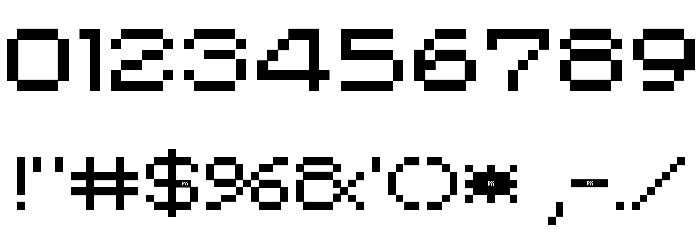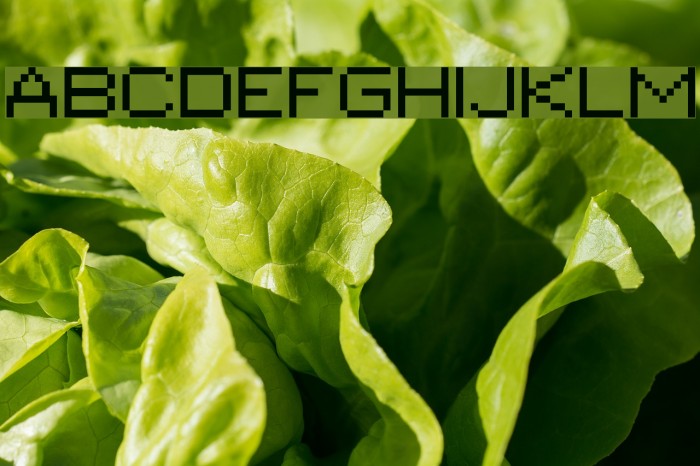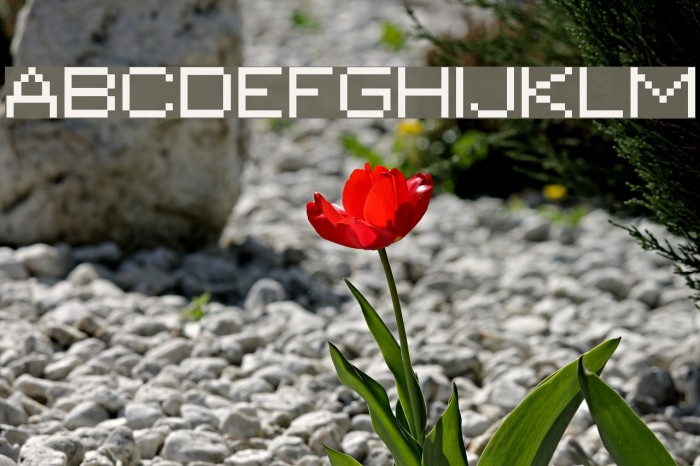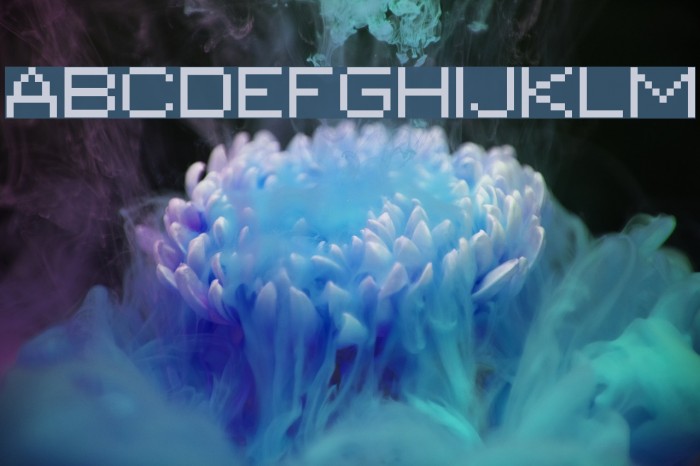
PIXgothic_7 Font
This font features a pixelated, blocky design reminiscent of early digital displays and retro video games. Each character is constructed with a grid-like structure, giving it a distinctly digital and geometric appearance. The uppercase and lowercase letters maintain a consistent height, contributing to a uniform look. The numerals and special characters follow the same pixelated style, ensuring cohesive visual harmony across all glyphs. This font's nostalgic aesthetic is perfect for projects aiming to evoke a sense of vintage computing or gaming.
A pixelated, retro-style font with a blocky, digital appearance.
• Proposed Projects: Ideal for retro video game designs, digital art projects, and nostalgic branding.